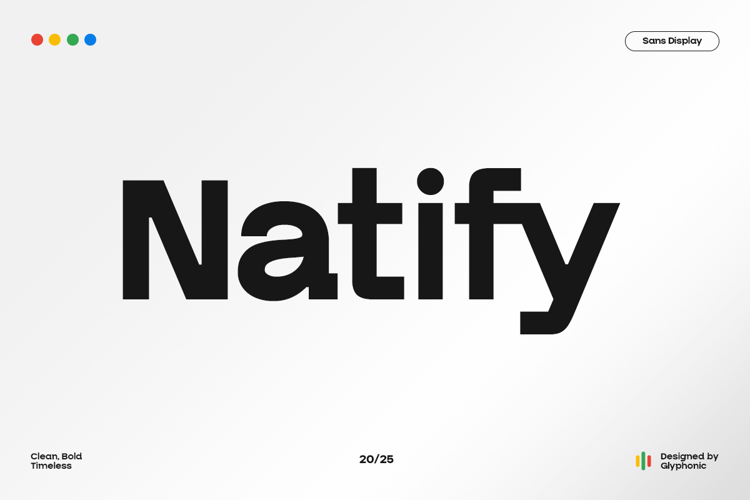
GC Natify Font
Extra Bold Style
GC Natify — Bold Modern Sans is a contemporary sans serif typeface designed for clarity, strength, and versatility. With its clean geometric structure and confident bold strokes, it delivers a powerful voice that adapts seamlessly across digital and print media. Crafted to embody simplicity without losing character, it’s ideal for branding, editorial layouts, tech-driven projects, and striking visual identities.